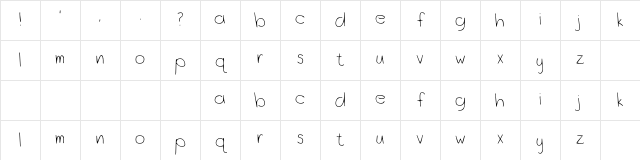
Ocean City Park is a composed and adaptable typeface that performs quietly and consistently across a wide range of design contexts.
Pro Tip: Use Ocean City Park in both headline and body roles to test its range before committing to a single application.